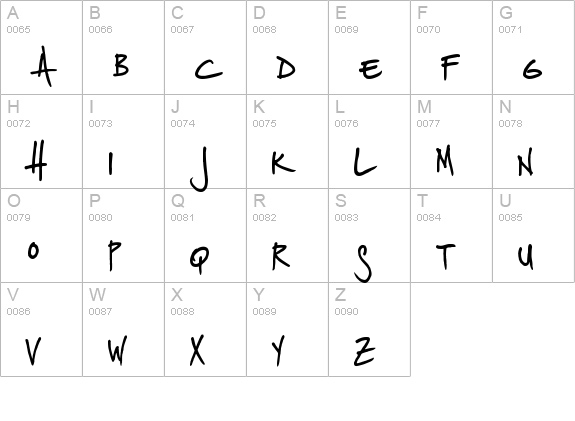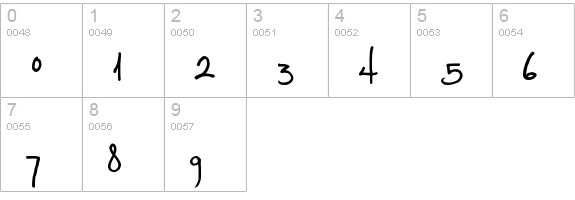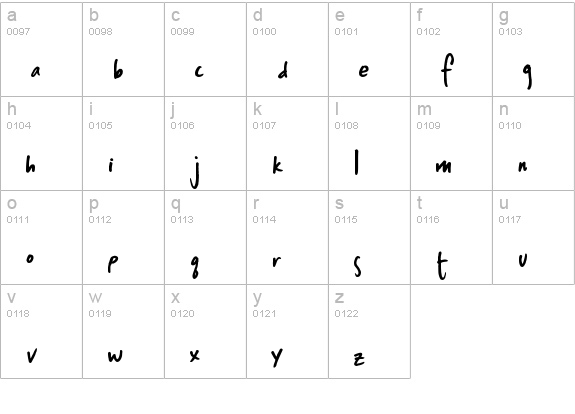
Splurge Font Details
Introducing Splurge, a stunningly elegant and versatile font that will undoubtedly leave a lasting impression. With its sleek lines and graceful curves, Splurge captures the essence of sophistication and modernity, making it the perfect choice for any design project. But what sets Splurge apart from the rest is its unique combination of beauty and accessibility. This extraordinary font is not only visually captivating, but it is also freely available to download at FontsMarket.com. Yes, you read that right - Splurge can be yours without breaking the bank! Whether you're a professional designer looking to add a touch of class to your latest creation or an aspiring artist searching for the perfect font to elevate your work, Splurge is here to fulfill your every need. Its wide range of weights and styles allows for endless creative possibilities, ensuring that your designs will stand out from the crowd. So go ahead, indulge in the beauty of Splurge. Download this remarkable font today from FontsMarket.com and experience the freedom of creating stunning designs without the burden of cost. Enhance your projects with the timeless elegance of Splurge and make a statement that will leave a lasting impression on all who see it.